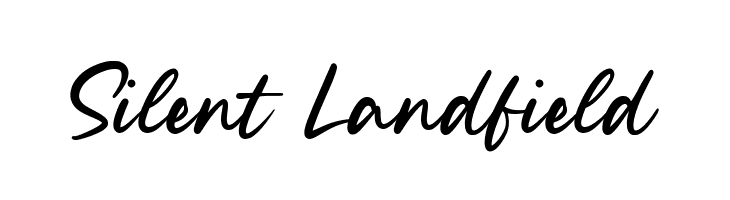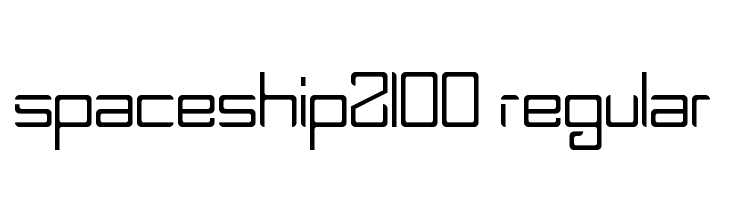
A futuristic, geometric font with clean lines and a modern aesthetic.
A bold, hand-drawn font with a rough, energetic texture.
A classic, calligraphic font with elegant, flowing letterforms and sharp serifs.
A bold, flowing script font with elegant, cursive letterforms.
A bold, geometric font with sharp angles and a blocky design.
A bold, rounded font with a retro and playful style.
A bold, italicized font with a halftone effect, ideal for modern, dynamic designs.
A bold, geometric font with art deco influences and a modern twist.
A fluid, handwritten script font with elegant, flowing lines.
A modern, condensed, and italicized font with a sleek and dynamic appearance.